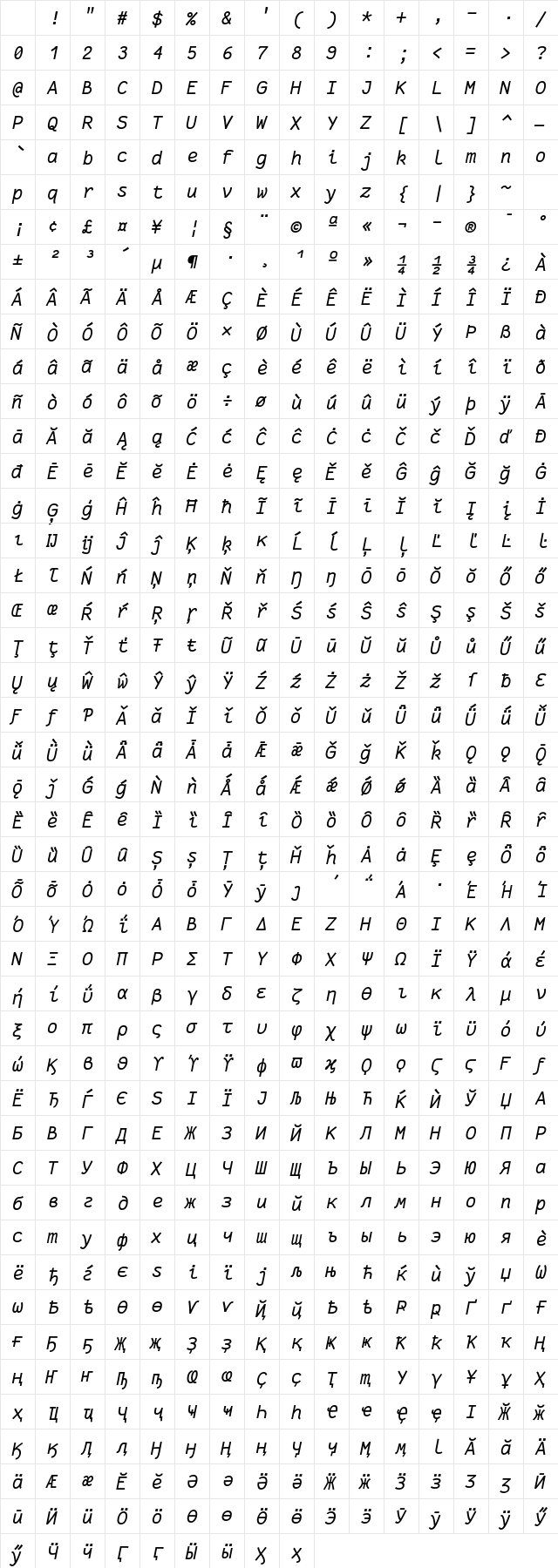
Complete FantasqueSansMono Nerd Font Mono Italic glyph index. Displaying only characters natively supported by FantasqueSansMono Nerd Font Mono Italic font.
FantasqueSansMono Nerd Font Mono uses fixed-width spacing throughout, giving it the structured, systematic character associated with coding environments and technical documentation. The slanted form adds forward momentum and visual energy.
Pro Tip: Use FantasqueSansMono Nerd Font Mono with slightly increased line-height for extended reading - fixed-width spacing can feel dense in longer passages without extra breathing room.